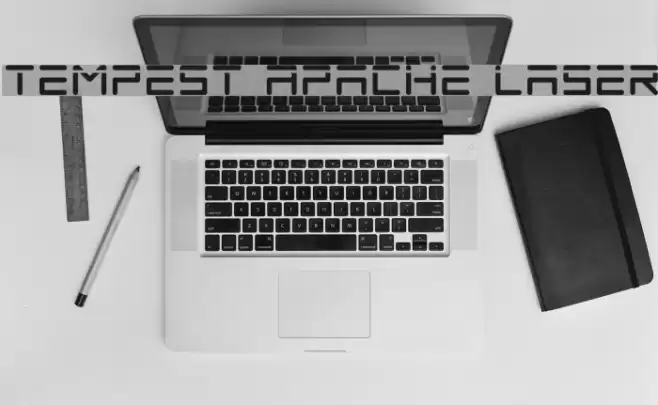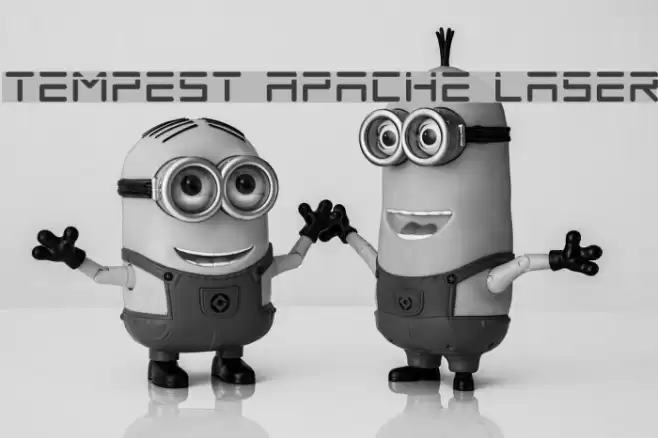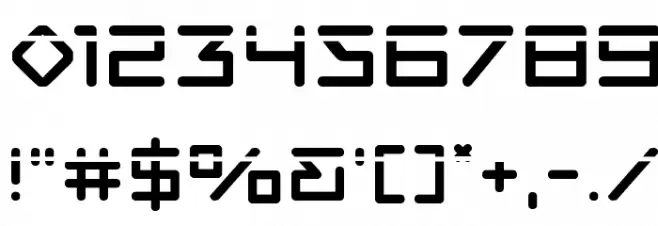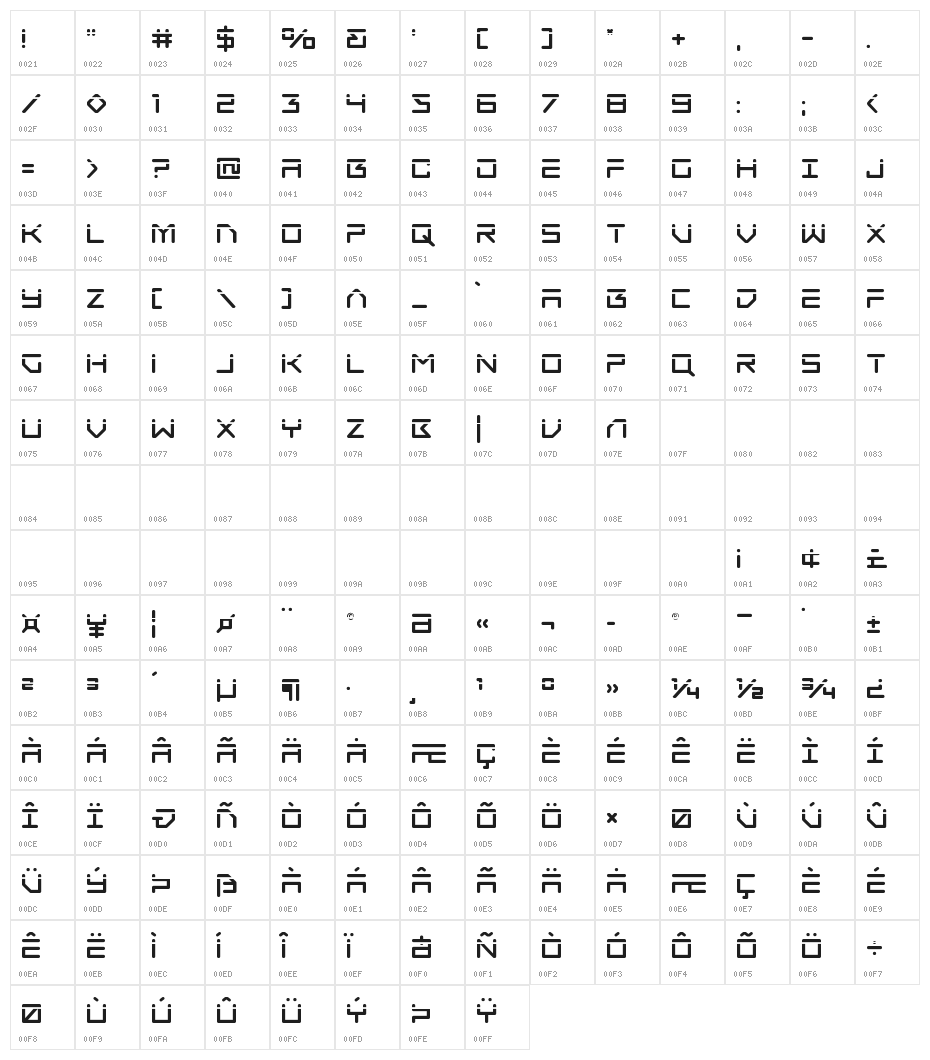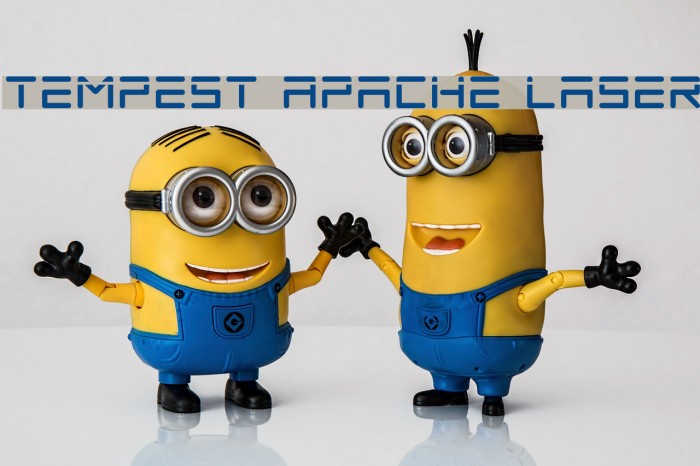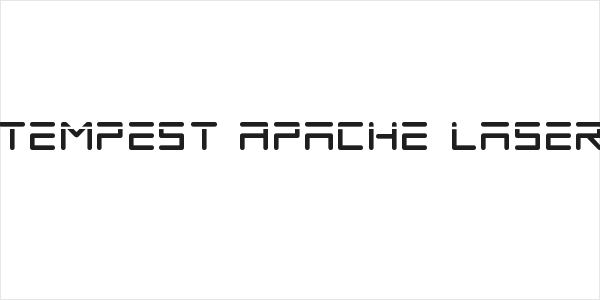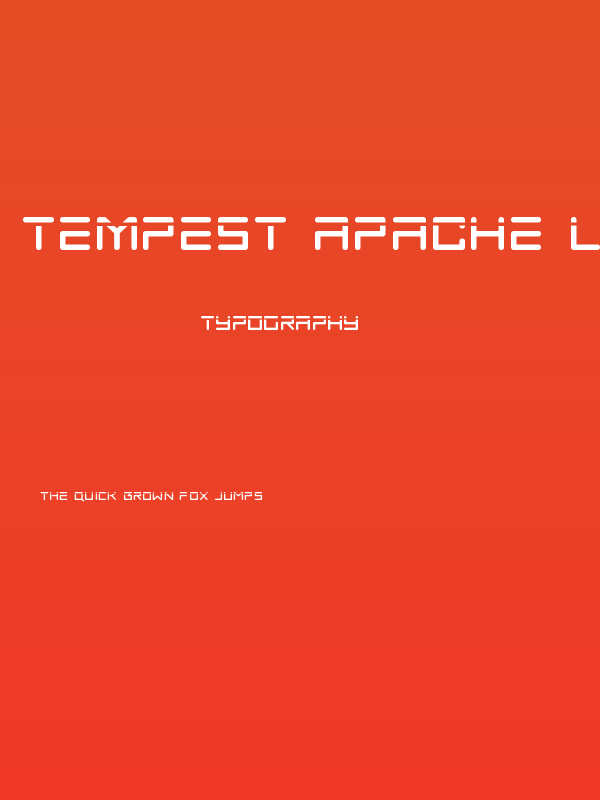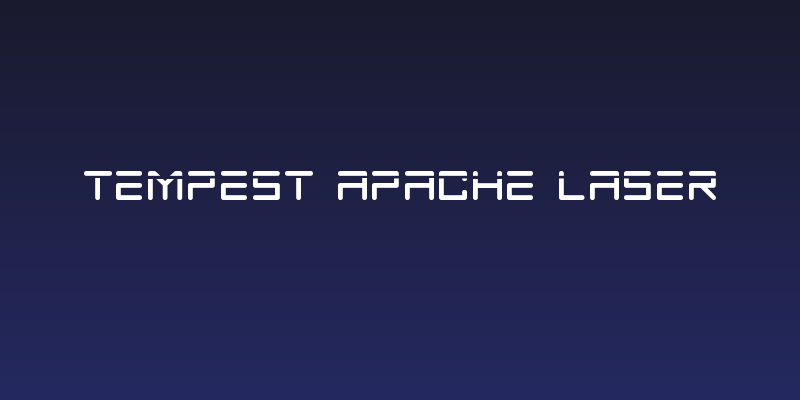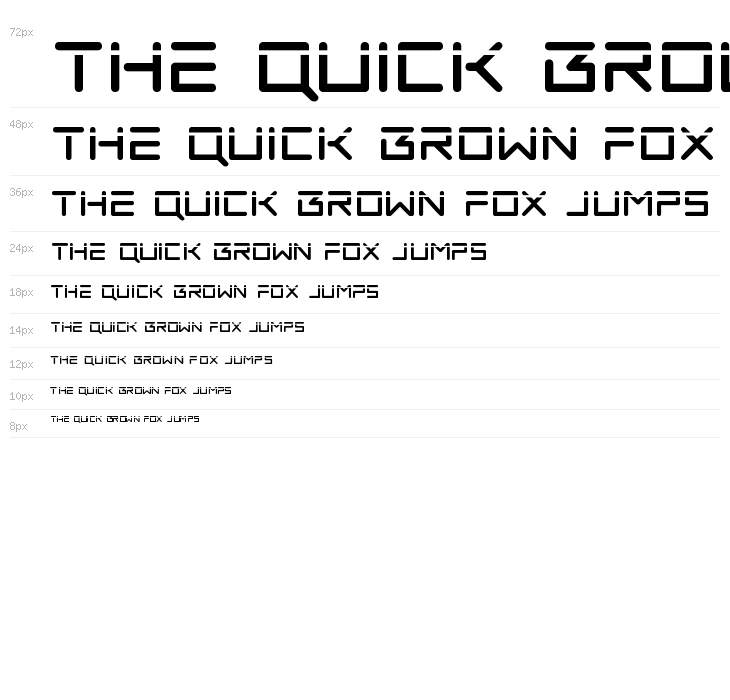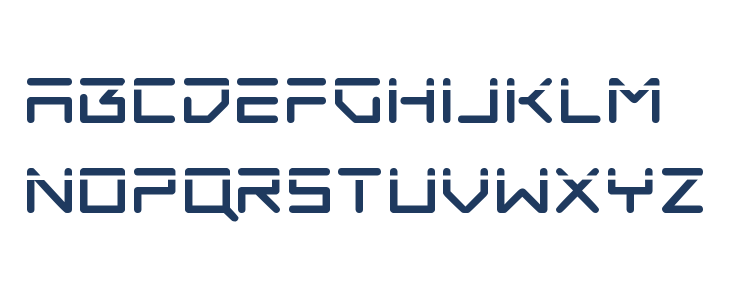
Tempest Apache Laser Font
Tempest Apache Laser Description
This font features a futuristic and geometric design, characterized by its angular and sharp edges. The letters are constructed with a consistent stroke width, giving it a uniform appearance. The style is reminiscent of digital or sci-fi themes, with a modern and sleek aesthetic. The uppercase and lowercase letters maintain a similar structure, enhancing readability while preserving the unique style. Numbers and special characters are designed to match the overall angular theme, making it suitable for projects that require a bold and distinctive look.
A futuristic, geometric font with angular and sharp edges from Uncategorized fonts.
- Proposed Projects: Ideal for sci-fi themed designs, video game interfaces, tech branding, and futuristic posters.